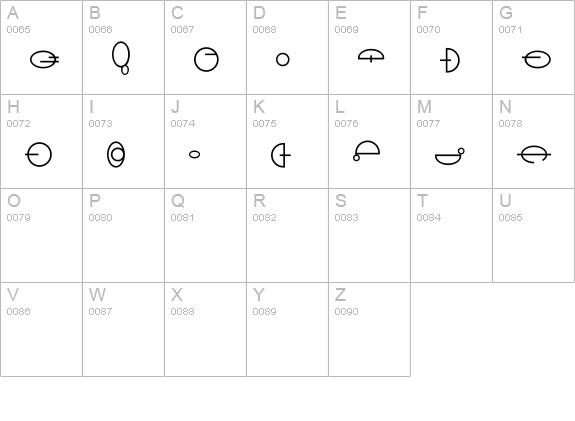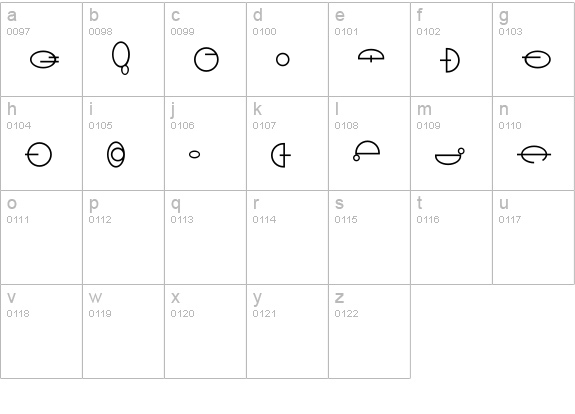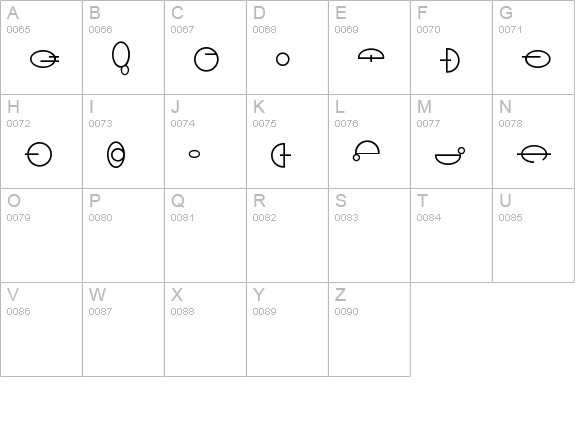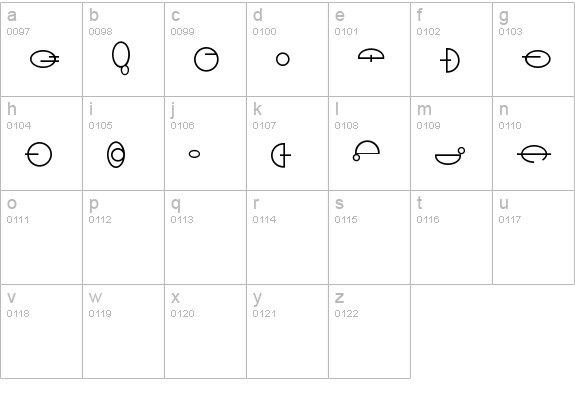
Naboo Font Details
Naboo font is a modern and stylish typeface that exudes elegance and sophistication. Its sleek lines and clean design make it perfect for a wide range of design projects, from branding to editorial layouts. With its versatile and timeless appeal, Naboo font adds a touch of class to any design. The best part is, Naboo font is completely free to download at FontsMarket.com. This means you can easily access this beautiful typeface and use it in your projects without any cost. Whether you're a graphic designer, a web developer, or a content creator, Naboo font is a fantastic addition to your font collection. Don't miss out on the opportunity to enhance your designs with the stunning Naboo font. Download it for free today at FontsMarket.com and elevate your projects with this elegant and modern typeface.